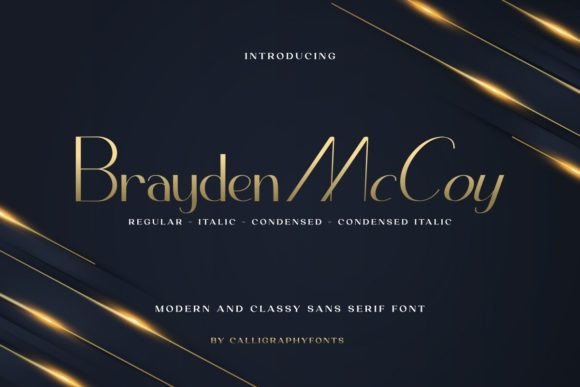
Brayden McCoy Font: Elevate Your Design with Elegance
In the world of typography, a font can make or break the visual identity of a brand. For designers and crafters seeking a modern and sophisticated look, Brayden McCoy Font is an excellent choice. This versatile sans serif font, crafted by CalligraphyFonts, offers a range of possibilities for various industries, from fashion and beauty to publishing and real estate.
What is Brayden McCoy Font?
Brayden McCoy Font is a modern sans serif font that exudes elegance and refinement. It comes in four distinct styles: Regular, Italic, Condensed, and Condensed Italic. This variety allows designers to experiment with different looks and tones, making it an excellent addition to any design project.
Key Features of Brayden McCoy Font
- Modern Sans Serif Design: Brayden McCoy Font boasts a clean and contemporary design, perfect for brands looking to establish a fresh and modern image.
- Four Classy Styles: The font comes in four styles: Regular, Italic, Condensed, and Condensed Italic, providing flexibility and versatility for various design applications.
- Elegant and Refined: The font’s elegant and refined aesthetic makes it suitable for industries that require a sophisticated look, such as luxury brands, beauty clinics, and high-end fashion.
Industries that Benefit from Brayden McCoy Font
Brayden McCoy Font’s versatility makes it an excellent choice for a wide range of industries, including:
- Accessories: Add a touch of elegance to your accessory brand with Brayden McCoy Font.
- Beauty Clinics: Convey sophistication and refinement in your beauty clinic’s branding and marketing materials.
- Clothing Brands: Elevate your fashion brand with a modern and stylish font that exudes confidence and poise.
- Handicrafts: Add a touch of luxury to your handmade products with Brayden McCoy Font.
- Jewelry: Showcase your exquisite jewelry pieces with a font that radiates elegance and sophistication.
- Publishing: Use Brayden McCoy Font to add a touch of refinement to your books, magazines, or online publications.
- Real Estate: Convey professionalism and elegance in your real estate branding and marketing materials.
- Restaurants: Add a touch of sophistication to your restaurant’s branding and menu design.
- Writers: Use Brayden McCoy Font to add a touch of elegance to your writing, whether it’s a novel, blog, or article.
Why Choose Brayden McCoy Font?
With Brayden McCoy Font, you can:
- Enhance Your Brand’s Image: Elevate your brand’s visual identity with a modern and sophisticated font.
- Increase Versatility: Use Brayden McCoy Font across various design applications, from print to digital.
- Save Time: With its range of styles, you can easily experiment with different looks and tones without having to invest in multiple fonts.
Brayden McCoy Font is an excellent choice for designers and crafters seeking a modern and elegant sans serif font. Its versatility, range of styles, and sophisticated aesthetic make it suitable for various industries and design applications. Whether you’re looking to elevate your brand’s image or add a touch of luxury to your design project, Brayden McCoy Font is an excellent choice.